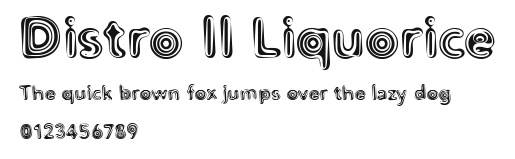
• Font Name: Distro II Liquorice
• Font Style: Liquorice
• Font ID: PeterADesigner|SwordfishFonts: Distro Liquorice: 2008
• Full Font Name: Distro II Liquorice
• PostScript Name: DistroII-Liquorice
• Designer: Peter A Designer
• Description: Part of the Distro series of typefaces, handcrafted by Peter A at the Swordfish Type Brewery. www.peteradesigner.com.
About Distro II Liquorice.ttf
Distro II Liquorice.ttf is a modern, elegant sans-serif font designed for ultimate readability and visual harmony. Perfect for branding, headlines, web design, and print materials.